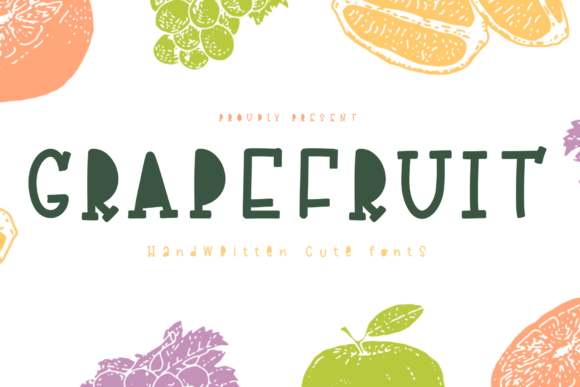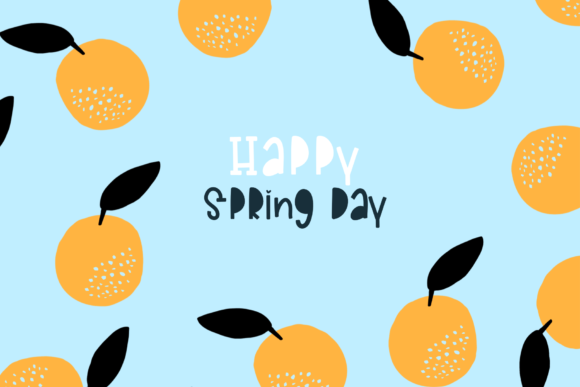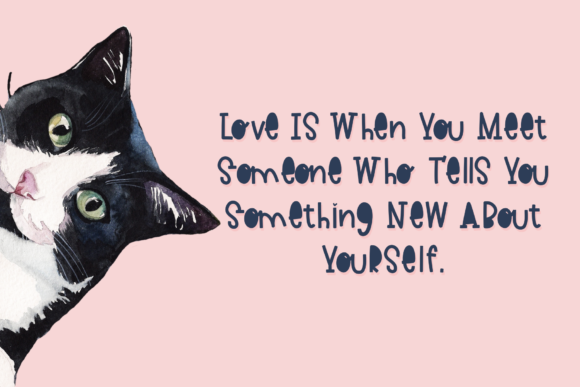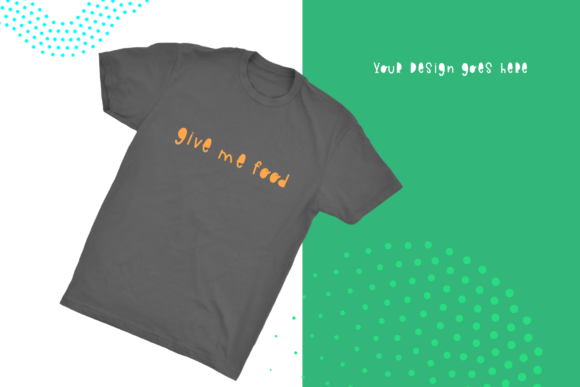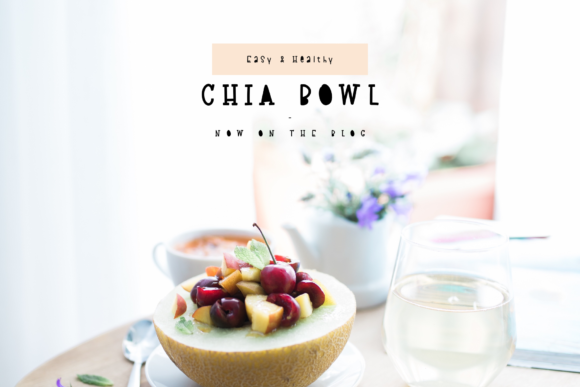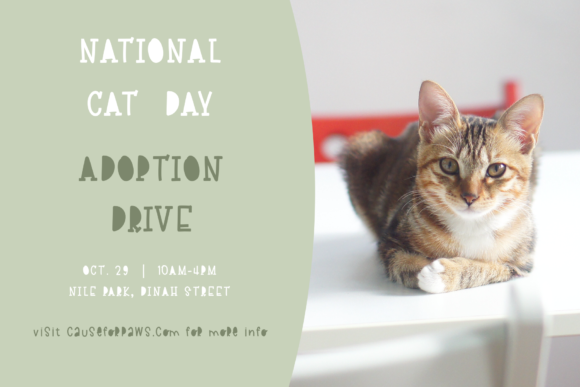
Grapefruit Font
About Grapefruit Font
Grapefruit embodies fun, quirkiness and authenticity. This enchanting handwritten font will turn any creative idea into a true standout. Get creative with its childlike playfulness, and use it to brighten up any kids and school project!